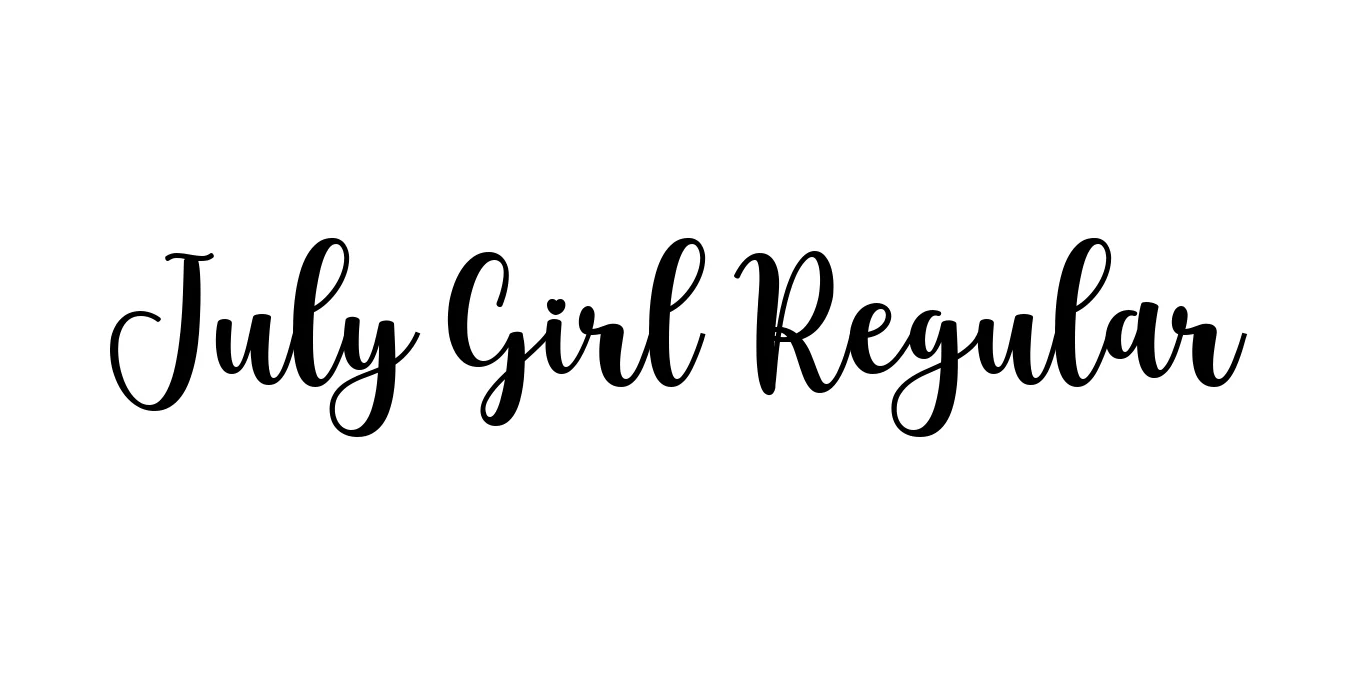
July Girl Regular
Designed by Allouse Studio
July Girl Regular is a stylish and elegant handwritten script font designed to convey a personal, feminine touch. Its flowing lines and graceful curves make it a popular choice for designers looking to add a sense of sophistication and warmth to their creative projects. The typeface exhibits a natural rhythm that mimics real handwriting, providing a bespoke feel to any layout.
Developed by Allouse Studio, the font features a comprehensive set of characters including uppercase, lowercase, numbers, and punctuation. It is particularly well-suited for high-end branding, wedding invitations, and social media graphics where a handcrafted look is desired. Its versatility allows it to function beautifully in both digital and print media, maintaining legibility even at smaller sizes.
July Girl Regular Best Uses
Perfect for invitations, save-the-dates, and place cards.
Ideal for logos in the beauty, fashion, and lifestyle industries.
Great for creating inspirational quotes and stylish Instagram posts.
Adds a premium, personalized feel to product labels and gift boxes.